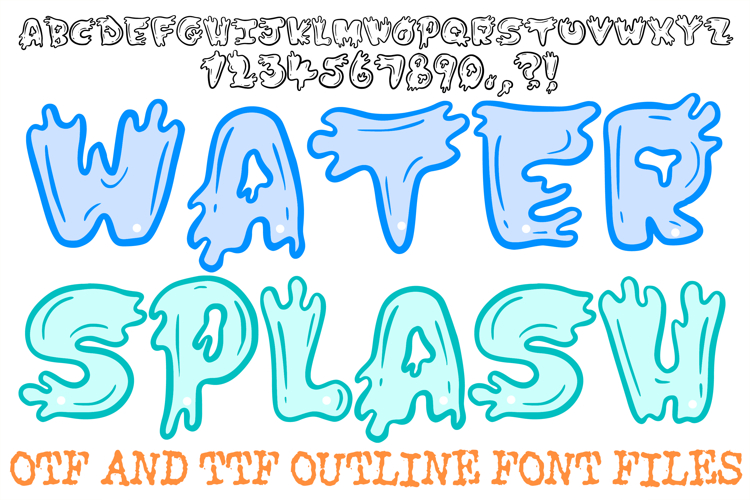
The Water Splash Font is a refreshing, high-energy display typeface that captures the fluid motion of rushing waves and liquid droplets. Featuring bold, undulating letterforms with dynamic splash effects and "drip" accents, this font is a premier choice for designers working on summer pool party invitations, surf-themed branding, beverage labels, and aquatic social media content.
The design creates a sense of constant movement and coolness, as if each character were freshly sculpted from a cresting wave. Whether you are building an identity for a water park or designing vibrant apparel for a coastal retreat, this font provides a fun, high-impact aesthetic that feels organic and full of life.
Fluid Motion Details: Every letter and number features stylized "splatter" terminals and interior bubble accents, adding an authentic liquid personality to your text.
Dynamic Wave Construction: The varying heights and irregular curves of the letterforms mimic the natural spontaneity of splashing water.
Cool Coastal Vibe: Perfectly tailored for summer-themed projects, making it a standout choice for menu headers, beachwear, and digital banners.
High-Visibility Display: The thick, clean outlines ensure that your headlines remain impactful and legible, even when layered over complex backgrounds.